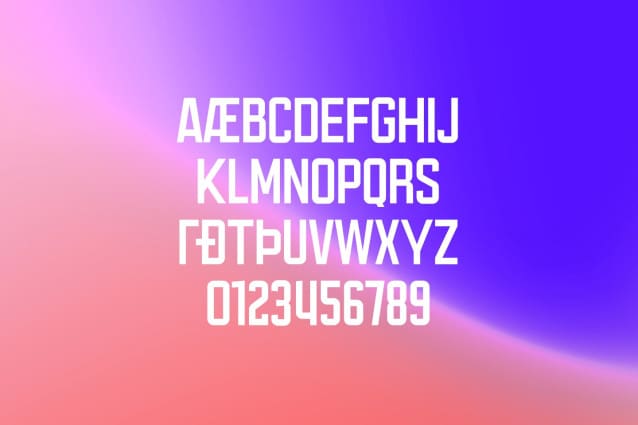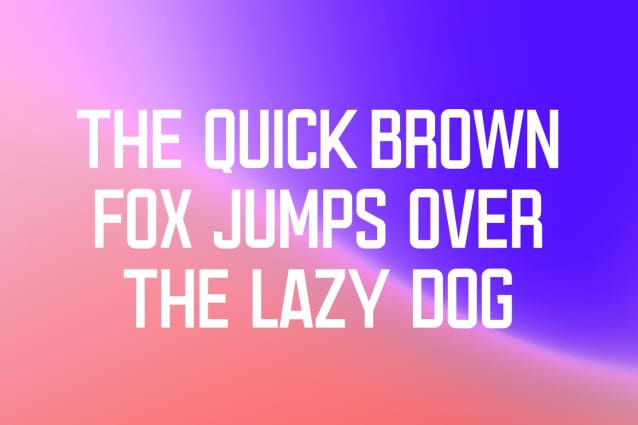
Exchanger Gothic Font
Exchanger Gothic Font, is a neo grotesque gothic font with some experimental styling. Perfectly fit for branding, logo, wedding things, greeting cards, fashion, lookbook, marketing promotion, anytime you want to look fancy elegant but still casual.